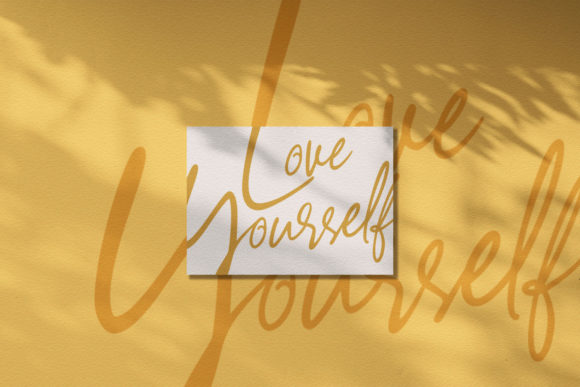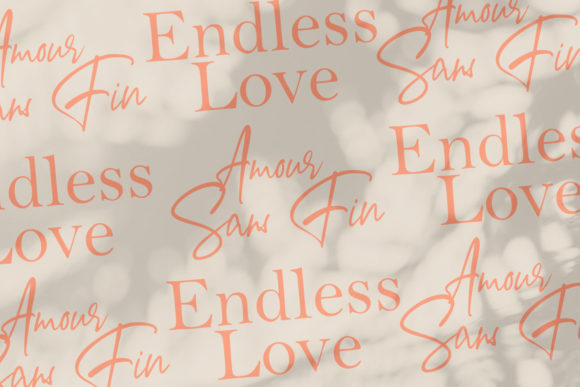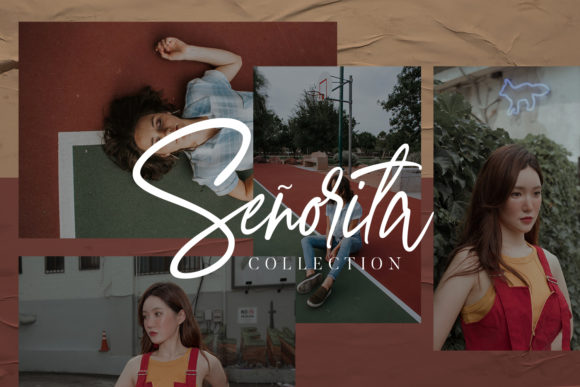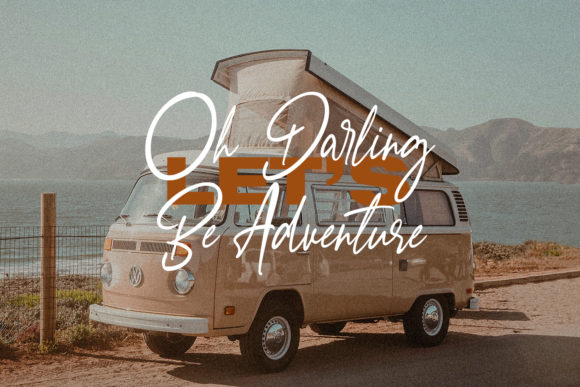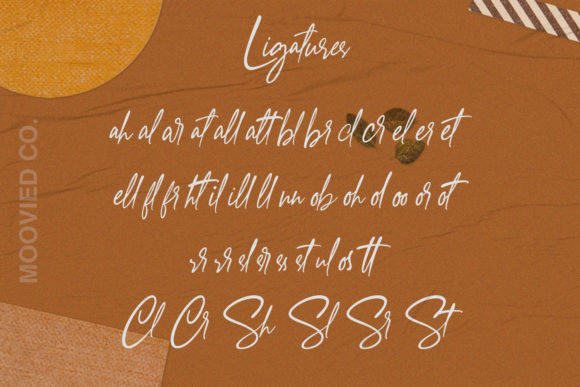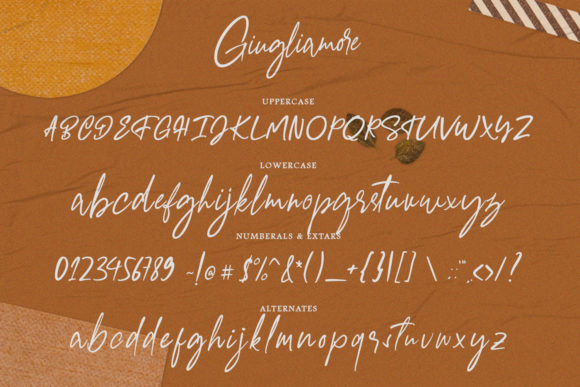
Unleash Your Creativity with the Giugliamore Font
Have you ever stared at a blank page, desperately searching for the perfect font to bring your project to life? The struggle is real, but we’ve got the solution. Introducing Giugliamore Font, a modern hand-written signature font designed to make your work stand out from the crowd. With its unique character and effortless charm, this font is the perfect addition to any branding or display project.
As a designer, you know how crucial it is to have the right tools at your fingertips. That’s why Giugliamore Font is a valuable asset for any creative professional. Its versatility and elegance make it an ideal choice for a wide range of applications, from logos and business cards to social media graphics and website headers.
Giugliamore Font Key Features
- Font Size: The font has a range of 3 weights: Light, Regular, and Bold.
- Unique Characteristics: Giugliamore Font features a distinctive, elegant script style with a mix of cursive and calligraphic elements, making it suitable for formal and creative applications.
- Language Support: The font supports a wide range of languages, including English, Spanish, French, German, Italian, and many others, making it a versatile choice for multilingual projects.
- Scalability: Giugliamore Font is designed to be highly scalable, allowing it to be used effectively in a variety of applications, from small text to large headings.
Giugliamore Font Review
Giugliamore Font is a beautiful script font that has caught my attention. Here are some aspects that I think work well:
- ✨ The font has a unique, elegant feel to it. It’s perfect for creating a sophisticated look.
- ✨ The font is highly legible, even at smaller font sizes.
- ✨ The font has a wide range of characters, including accented letters and symbols.
However, there are some limitations that I think are worth mentioning:
- ⚠️ The font may not be suitable for large-scale text, as it can become difficult to read.
- ⚠️ The font is quite thin, which may not be ideal for bold or emphasized text.
- ⚠️ The font does not support some languages, which may limit its use in certain applications.
Overall, I think Giugliamore Font is a great choice for designers who want to add a touch of elegance to their projects. While it may have some limitations, the font’s unique feel and high legibility make it a great option for a variety of applications.
Giugliamore Font: A Practical Application Guide
- Experiment with different font sizes and styles to create visual interest.
- Pair Giugliamore Font with other elegant fonts for a sophisticated look.
- Use the font as a title or headline to draw attention.
- Experiment with different font sizes and styles to create visual hierarchy.
- Use the font as a heading or title to create a professional look.
- Experiment with different font sizes and styles to create visual interest.
Creative Projects Using Giugliamore Font
Project 1: Vintage Travel Brochure
Project 2: Luxury Brand Identity
Project 3: Artistic Poster Series
Frequently Asked Questions about Giugliamore Font
What is the Giugliamore Font, and what type of font is it?